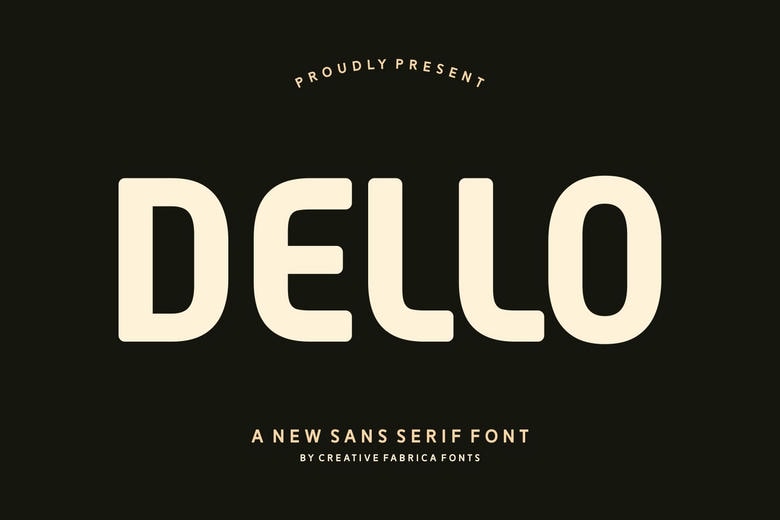
Dello Font
Dello is a new Creative Fabrica Fonts sans serif font. Its font itself is heavy and rounded, creating a friendly, soft, yet effective look appropriate to contemporary branding, headline and logos.
Dello Sans Serif Font